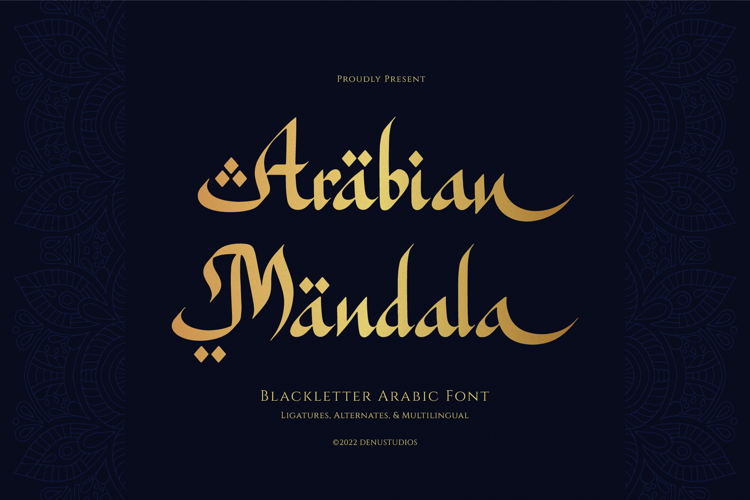
Arabian Mandala Font
Arabian Mandala | Blackletter Arabic Font product packaging, mugs, quotes, posters, shopping bags, t-shirts, book covers, name card, invitation cards, greeting cards, label, photography, watermark, special events, and all your other lovely projects that need a Arabic taste.